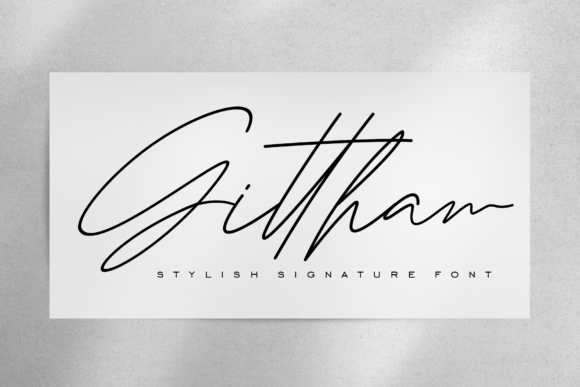
In a realm where visual expression reigns supreme, where words dance off the page with captivating allure, there exists a font that embodies grace, sophistication, and timeless elegance – Gittha Font. Artkenza, the creative force behind this masterpiece, has woven their artistry into each sweeping curve and delicate line, culminating in a symphony of letters that speak to the soul.
Gittha Font, a member of the illustrious script font family, beckons you to embrace your creative spirit and embark on a journey of unparalleled self-expression. Whether you're a seasoned designer seeking to elevate your work or a budding entrepreneur eager to make a lasting impression, Gittha Font holds the key to unlocking your creative potential.
With its inherent versatility, Gittha Font effortlessly adapts to a myriad of design endeavors. Craft captivating logos that exude professionalism and leave an indelible mark on your audience's minds. Design branding materials that radiate sophistication and allure, attracting customers like moths to a flame. Create wedding invitations that evoke a sense of timeless romance, transforming your special day into an unforgettable affair.
But Gittha Font's allure extends far beyond the confines of traditional design. Unleash your imagination and explore its limitless possibilities. Adorn your social media posts with captivating typography that captivates your followers and sets you apart from the mundane. Design eye-catching posters and flyers that command attention and ignite curiosity, leaving passersby eager to discover more.
As you immerse yourself in the world of Gittha Font, you'll discover a font that transcends mere aesthetics. It's a font that evokes emotion, stirs the senses, and ignites the imagination. Prepare to be captivated by its enchanting aura, a font that will forever change the way you communicate visually.
Whether you're a seasoned creative professional or just starting your design journey, Gittha Font is your steadfast companion, guiding you towards design excellence and inspiring you to create masterpieces that resonate with your audience. Embrace the allure of Gittha Font today and let your creativity flourish like never before.